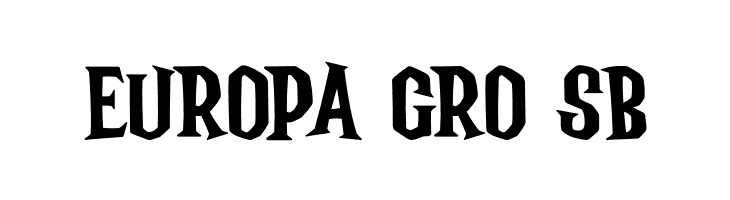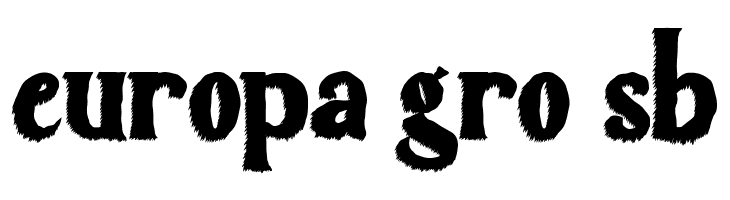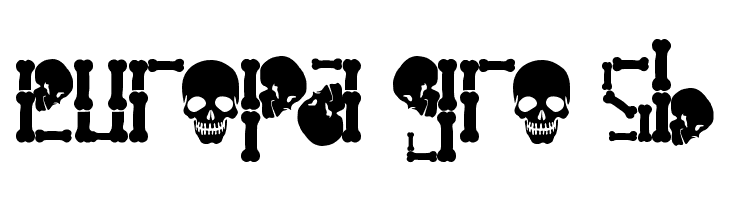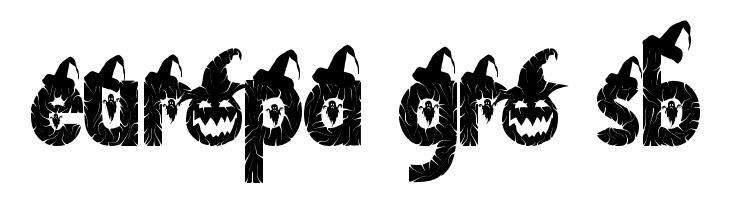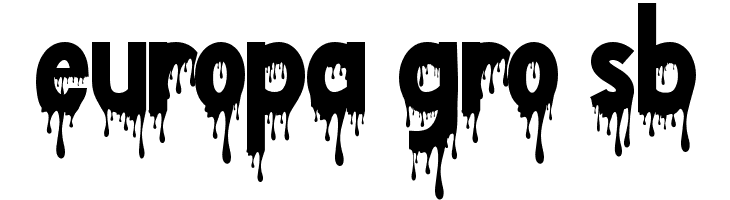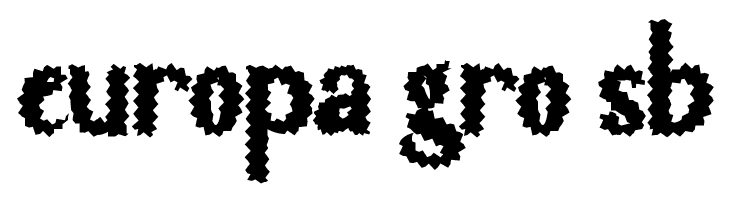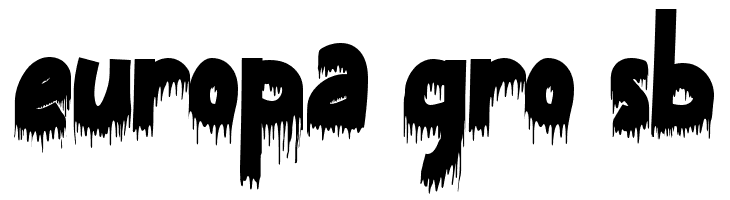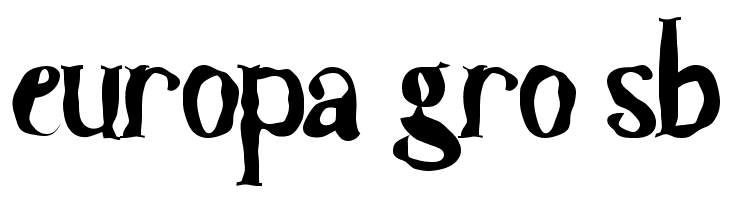
A bold, distressed font with skull motifs, perfect for horror themes.
A bold, angular font with a spooky, hand-drawn style.
A jagged, horror-themed font with rough, textured characters.
A spooky, skeleton-themed decorative font with bold, bone-constructed characters.
A bold, horror-themed font with jagged, thorn-like details and a gothic style.
A bold, dripping font ideal for horror themes and Halloween designs.
A jagged, spooky font with a bold, distressed appearance.
A bold, dripping font with a horror-themed aesthetic.
An edgy, gothic-inspired font with sharp, irregular edges and a dramatic appearance.
A bold, jagged font with a horror-themed, distressed style.